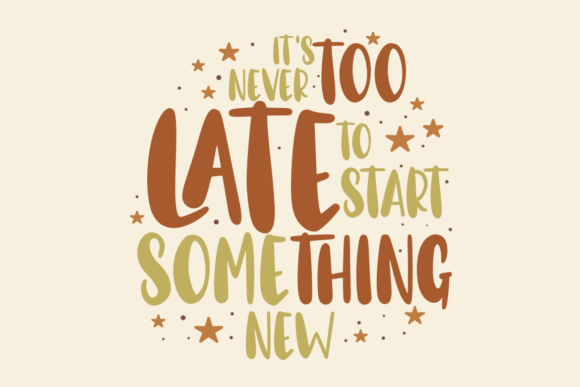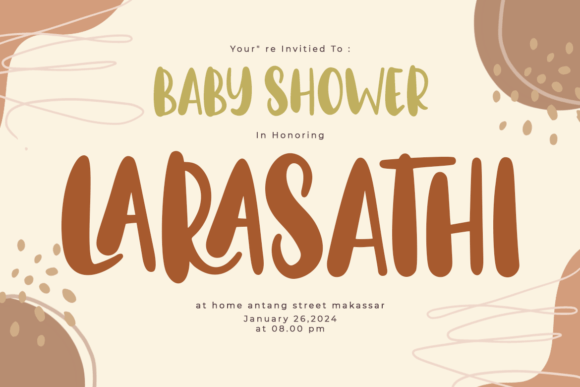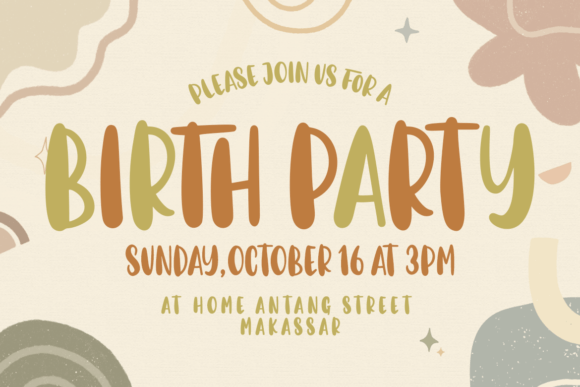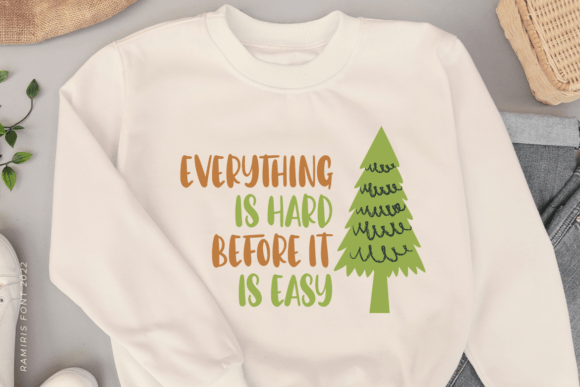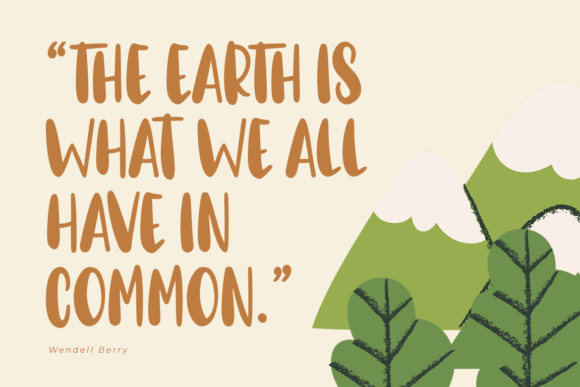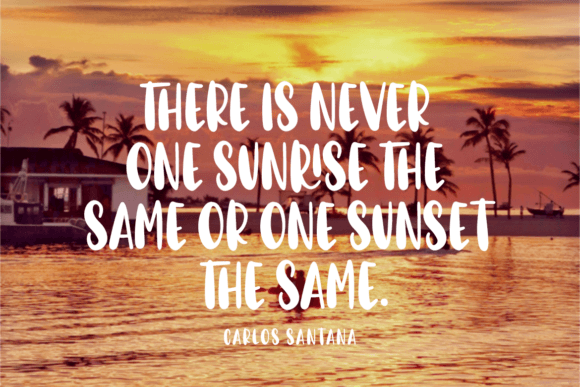
Introduction to Ramiris Font Font
Fonts play a crucial role in design, and the Ramiris Font font is a typeface that brings both character and versatility to any project. Whether you’re working on a branding project, a website, or a print design, the Ramiris Font font offers a unique style that can elevate your work.
| 📌 Font Name | Ramiris Font |
| 👤 Author | Masa Aska Sanurumi |
Ramiris is a versatile, cute, and playful Display font, perfect for a wide spectrum of applications such as greeting cards, headlines, and many more.
Add it to any of your creative projects, and it will give them a clean and fun feel .
Key Features of Ramiris Font Font
Why Choose Ramiris Font Font?
The Ramiris Font font is more than just a typeface – it’s a design tool that helps you communicate your message with style and clarity. Its unique character set and versatile design make it suitable for a wide range of applications, from elegant invitations to bold headlines.
With its carefully crafted letterforms and balanced proportions, the Ramiris Font font ensures readability and visual appeal across all mediums.
What makes Ramiris Font font special?
The Ramiris Font font stands out with its unique design, exceptional readability, and versatility across various design applications.